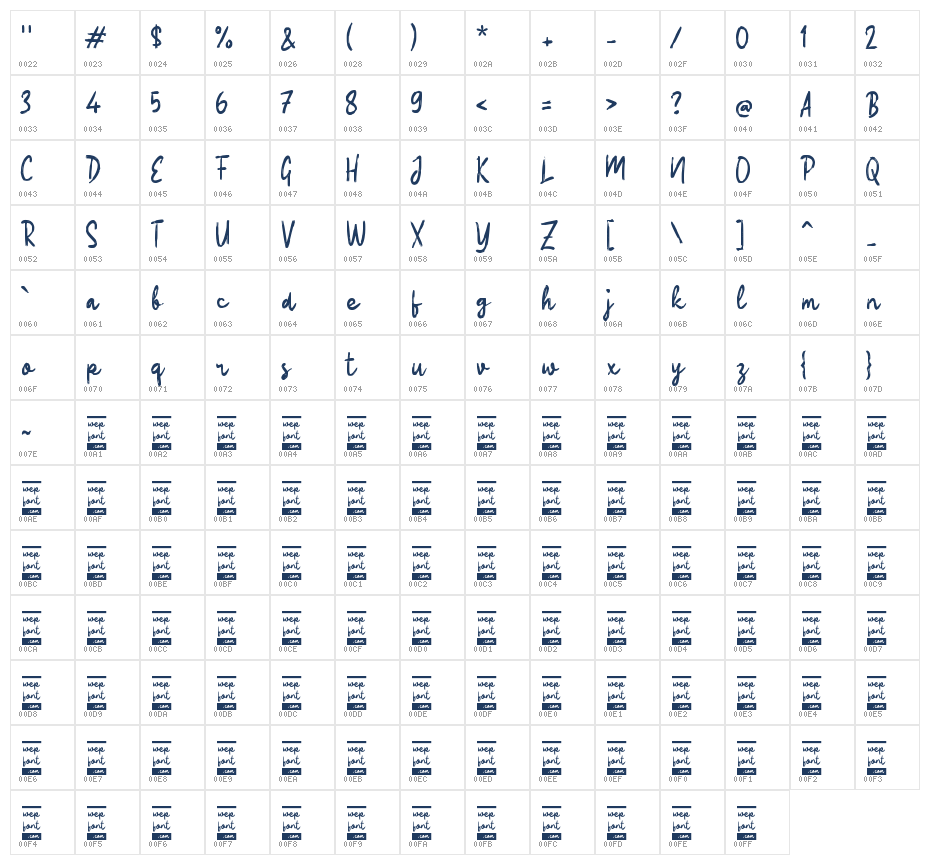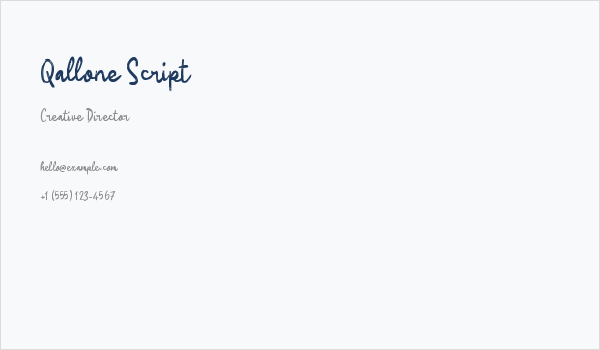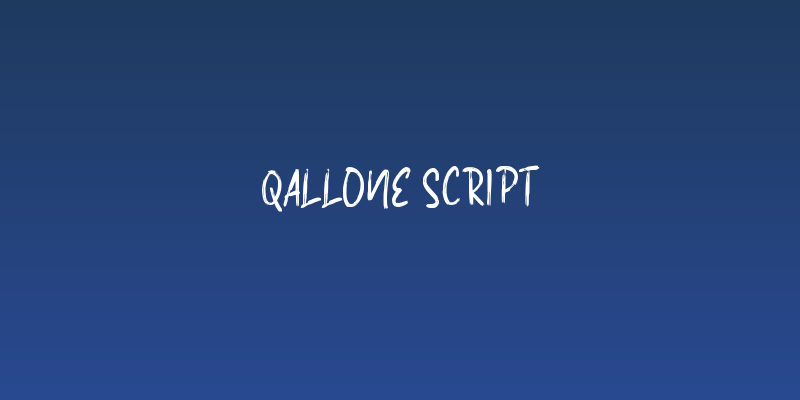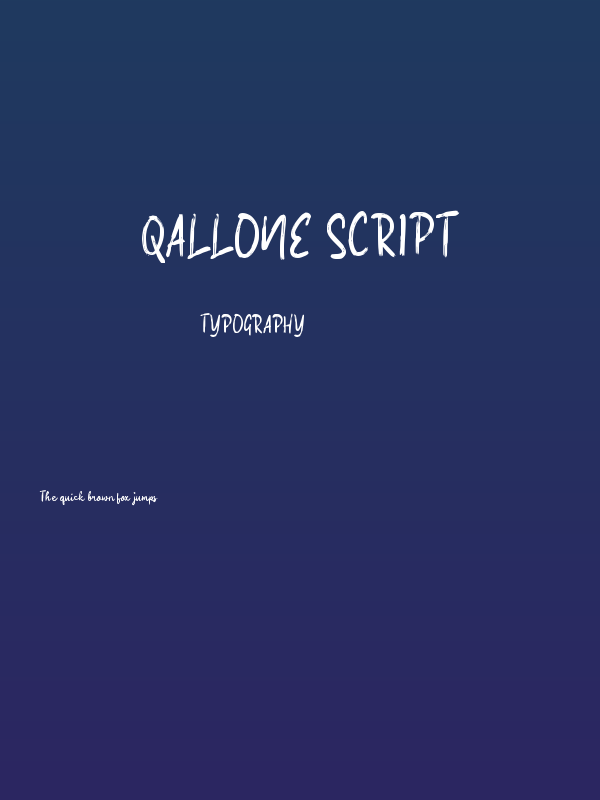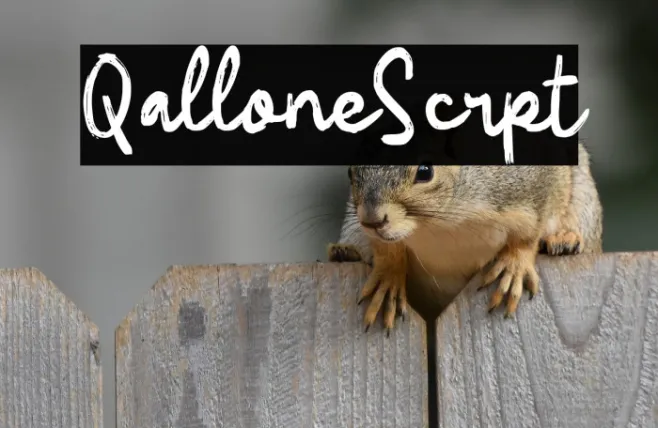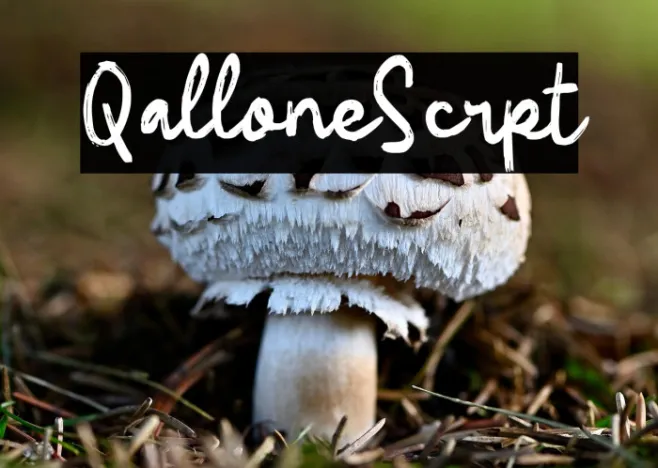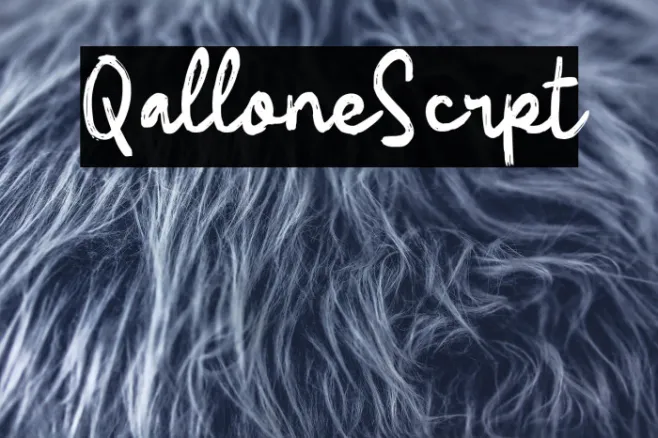
Qallone Script Font
Qallone Script Description
A casual, handwritten script font with a playful and informal style, featuring varying stroke widths and a slightly irregular baseline.
| Overall Style | Casual, Handwritten, Playful |
| Use Case | Headlines, Body text, Logos, Invitations |